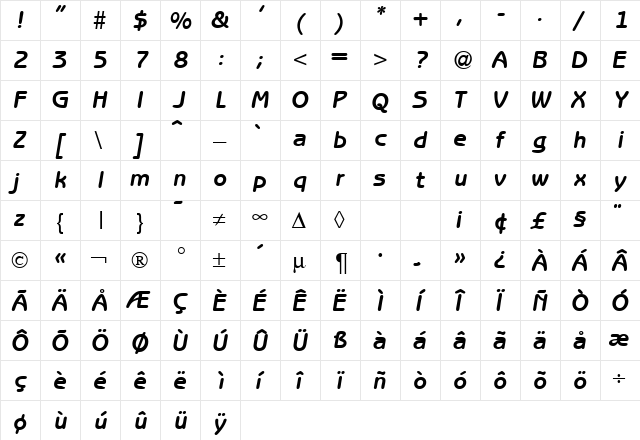
BenjaminSans BoldItalic Font Preview
Design Context for BenjaminSans Typeface
BenjaminSans offers clean, dependable letterforms without strong stylistic allegiance, making it a practical choice for designers who need flexibility. Its italic angle brings a sense of urgency and motion to the letterforms. The heavy weight commands attention and anchors typographic hierarchies.
Pro Tip: Try BenjaminSans for annotation and caption copy alongside an upright companion — the contrast in angle creates a dynamic but ordered typographic system.